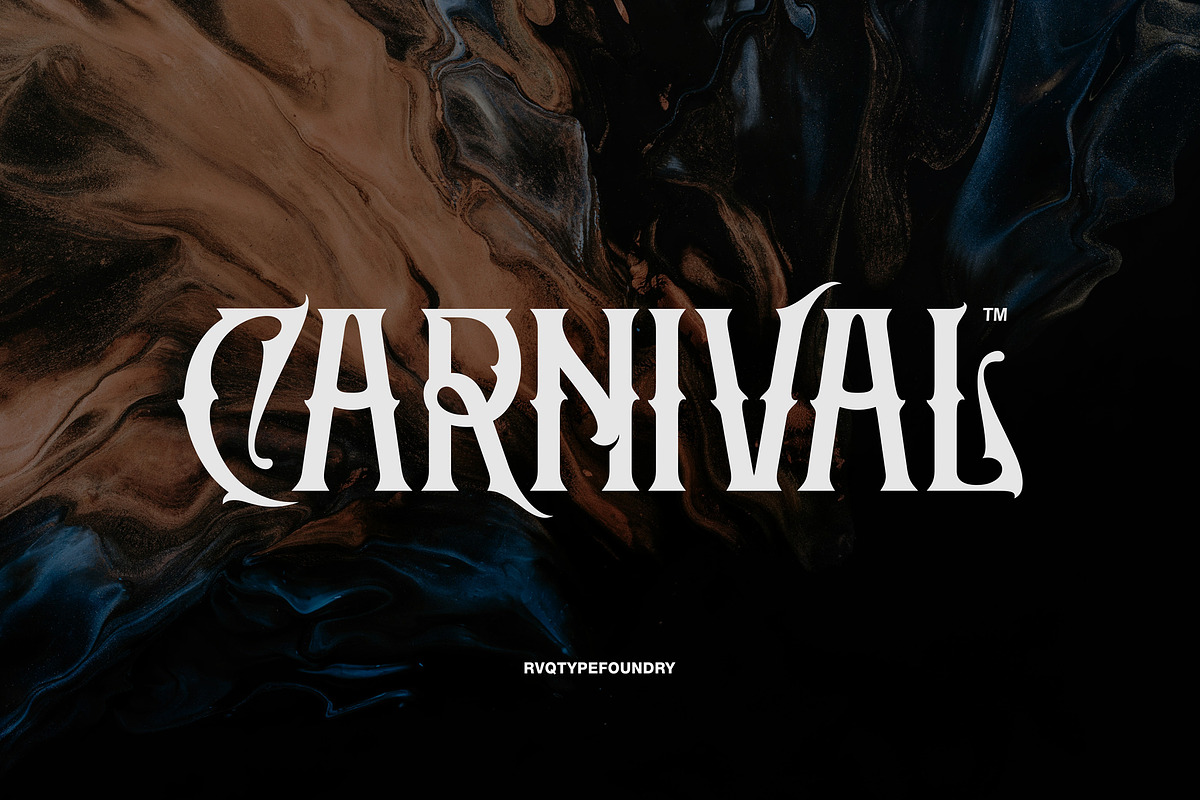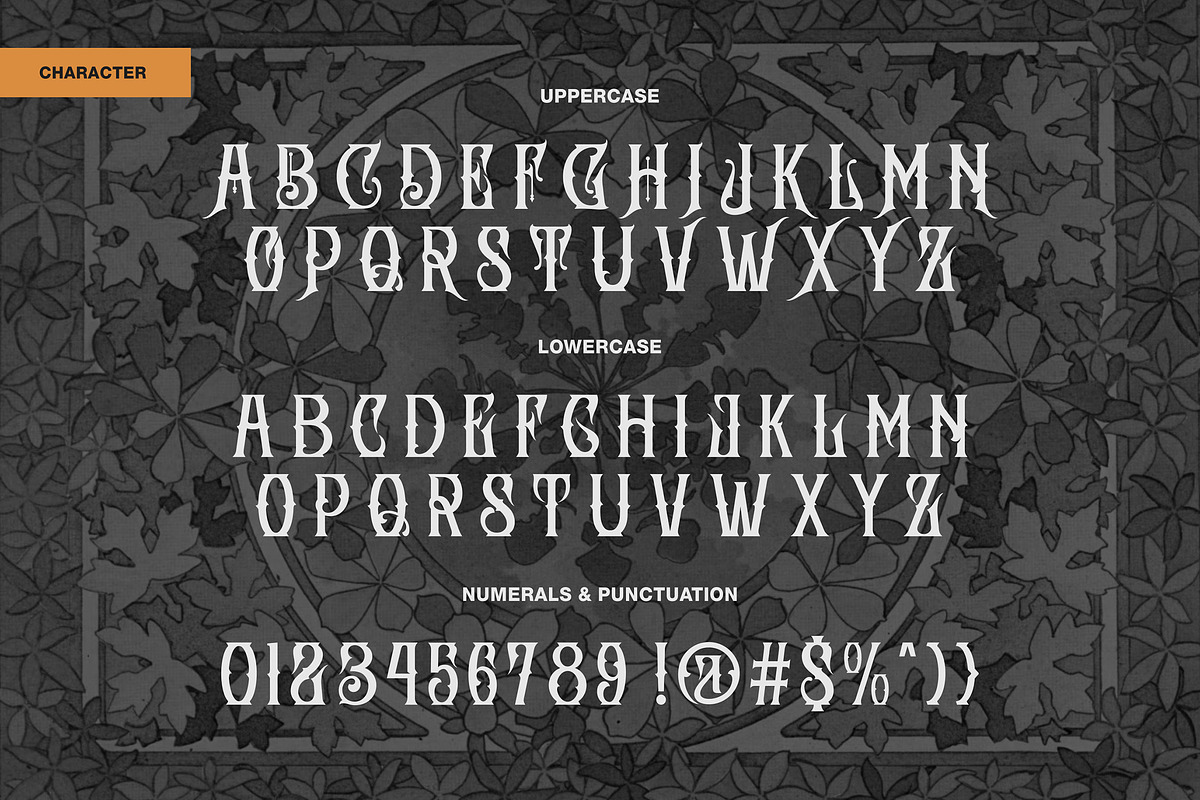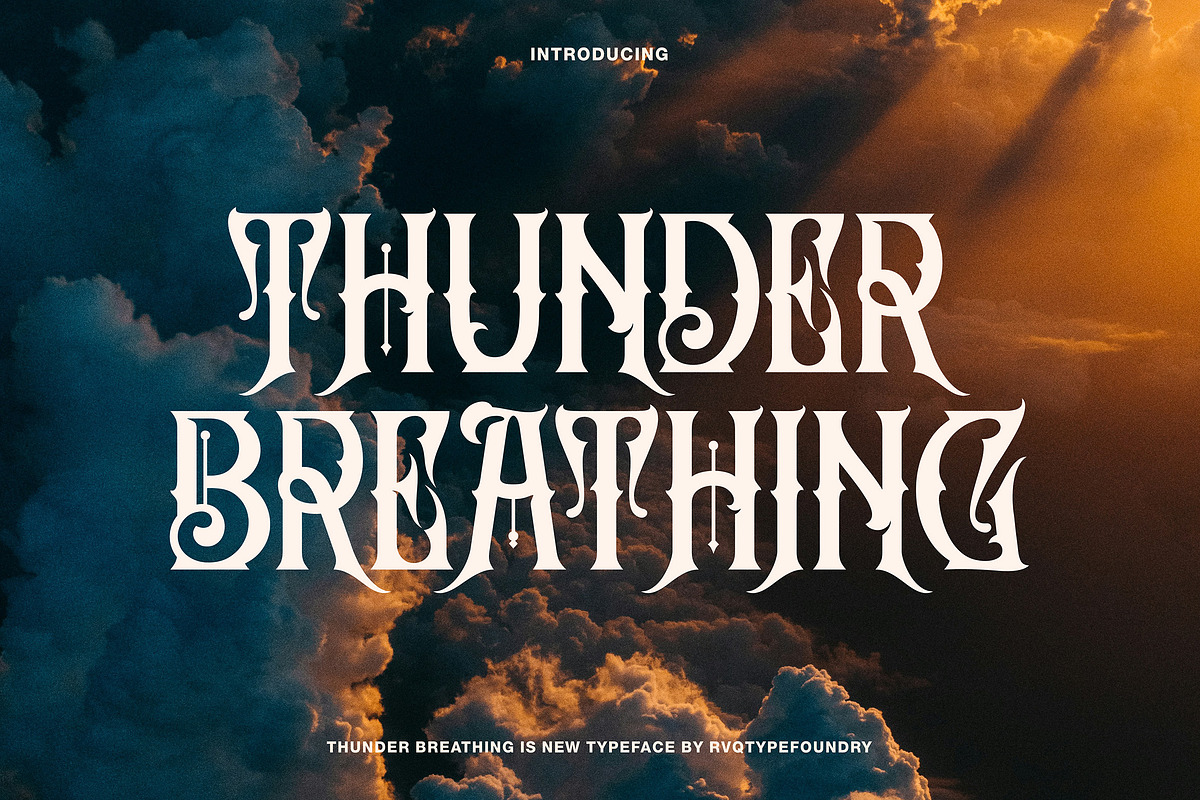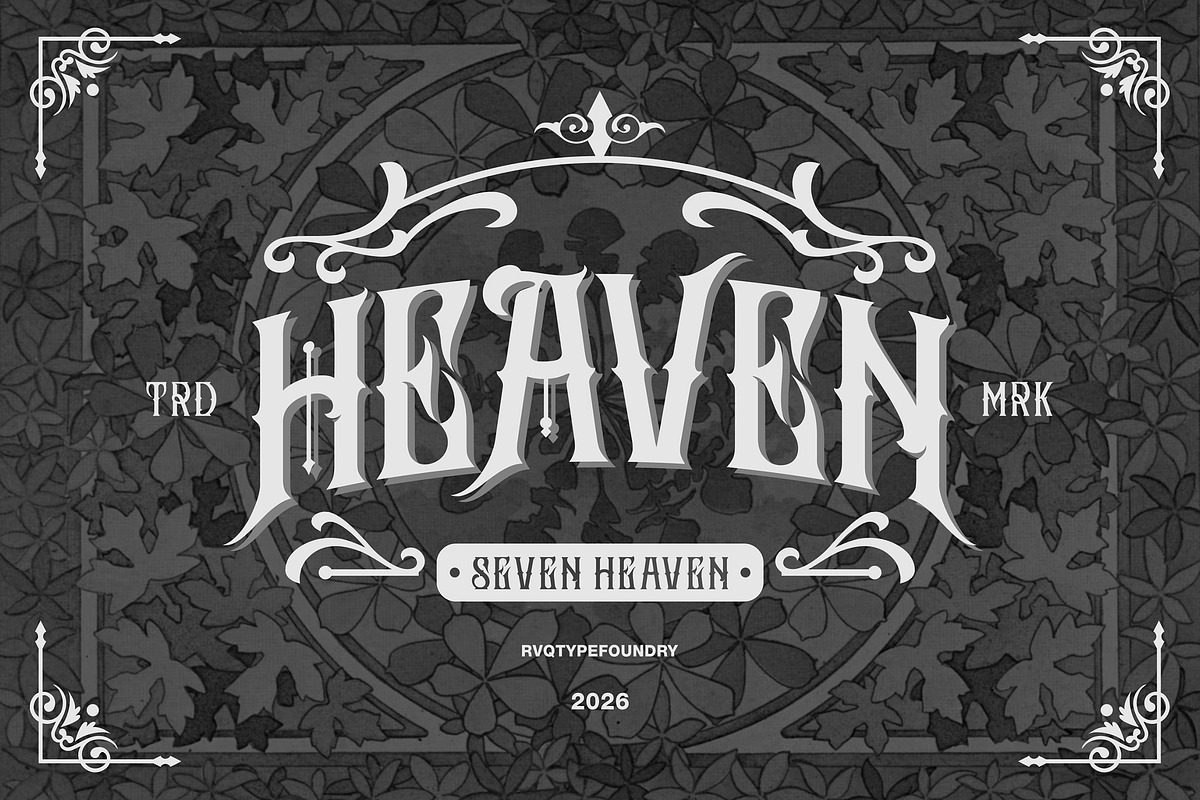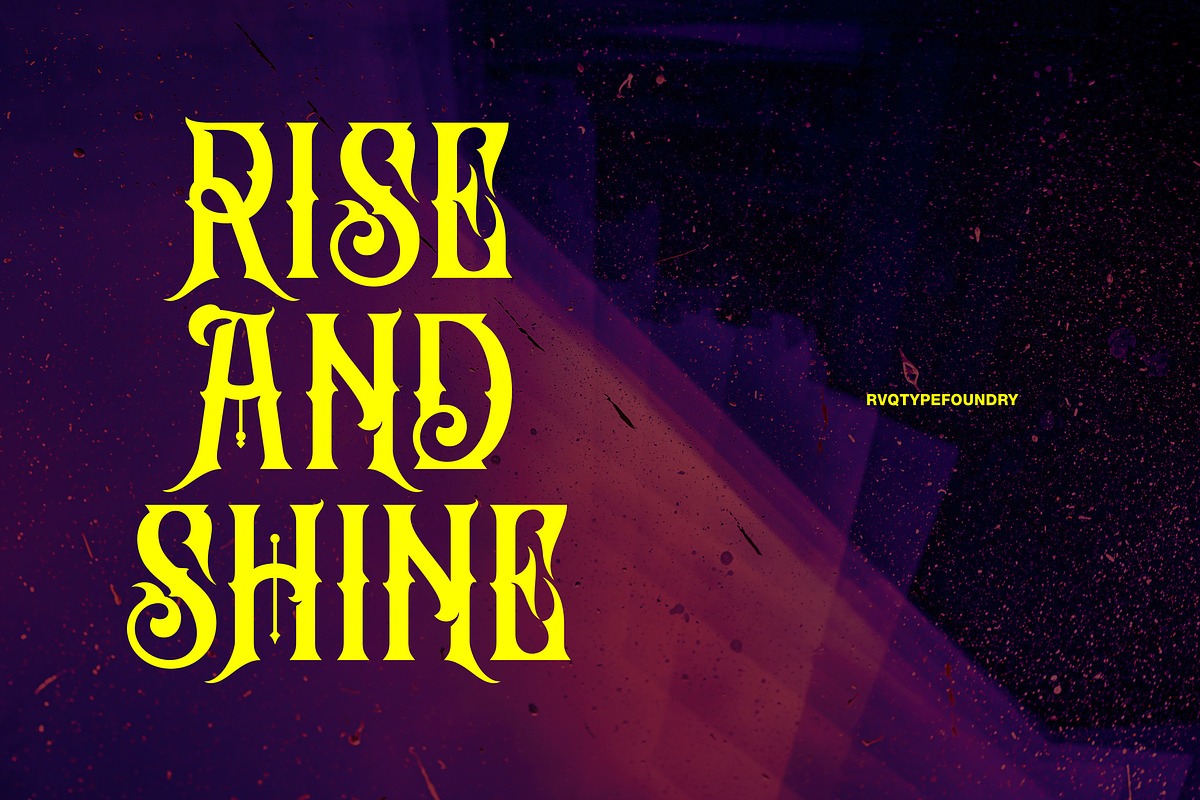
Thunder Breathing
Thunder Breathing is new font Black letter from Rvq Typefoundry, new typeface with classy, elegant and vintage feel character set. To create the beautiful combination, just mix the uppercase and lowercase then mix with the alternative glyphs. Thunder Breathing typeface includes a full set of capital and lowercase letters, as well as multi-lingual support, currency figures, numerals, punctuation & some extra glyphs.
Character Set A-Z
Numerals & Punctuations (OpenType Standard)
Accents (Multilingual characters)
Thunder Breathing is suitable font for many creative products & designs.